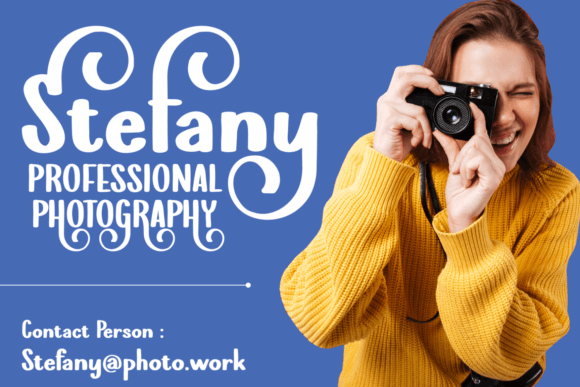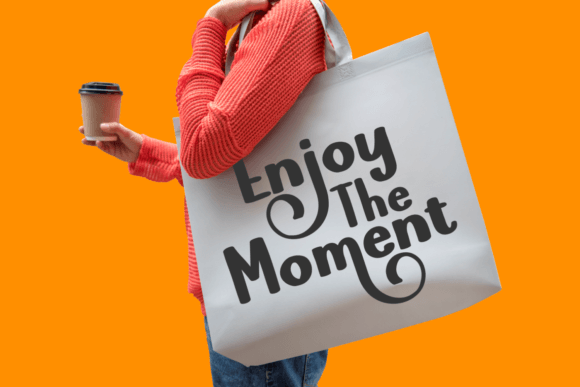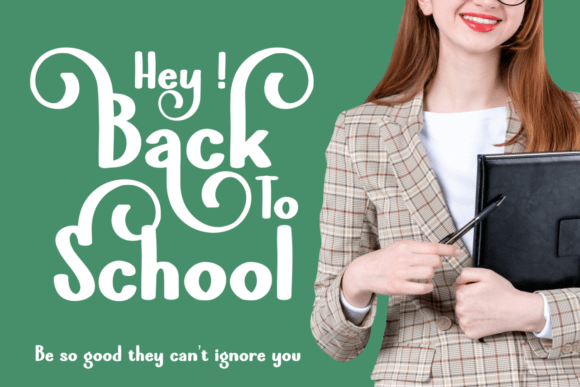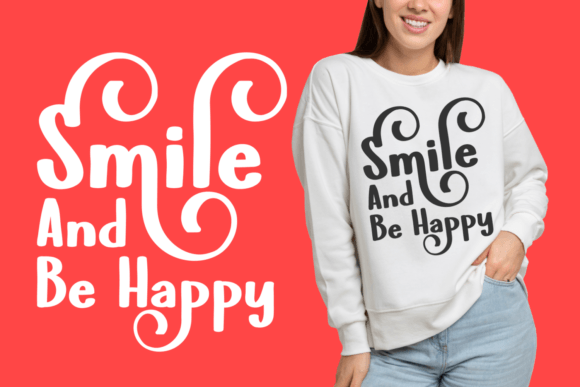
Ghisfa Font: Unleash Your Creativity with Curly and Cheerful Swashes!
Are you a designer, crafter, or DIY enthusiast looking for a font that can add a touch of playfulness and whimsy to your projects? Look no further than the Ghisfa Font! This adorable display font is perfect for creating eye-catching typography designs that will make your logos, cards, fabric prints, web graphics, and more stand out from the crowd.
What Makes Ghisfa Font So Special?
Ghisfa Font is a cute and playful display font that features curly and cheerful swashes, perfect for adding a touch of personality to your designs. The font is designed to be highly versatile, making it suitable for a wide range of projects, from branding and advertising to crafting and DIY. With Ghisfa Font, you can create unique and eye-catching typography designs that will capture the attention of your audience.
Key Features of Ghisfa Font
- Curly and Cheerful Swashes: The font features a range of curly and cheerful swashes that can be used to add a touch of playfulness to your designs. From simple and elegant swashes to more complex and intricate designs, Ghisfa Font has everything you need to create stunning typography.
- Highly Versatile: Ghisfa Font is suitable for a wide range of projects, including logos, cards, fabric prints, web graphics, and more. Whether you’re a designer, crafter, or DIY enthusiast, this font is perfect for adding a touch of personality to your projects.
How to Use Ghisfa Font in Your Designs
Using Ghisfa Font in your designs is easy! Here are a few tips to get you started:
- Logos: Use Ghisfa Font to create unique and eye-catching logos that will make your brand stand out from the crowd. The font’s curly and cheerful swashes are perfect for adding a touch of personality to your logo.
- Cards: Add a touch of whimsy to your greeting cards, invitations, and other paper crafts with Ghisfa Font. The font’s playful swashes are perfect for creating eye-catching typography designs.
- Web Graphics: Use Ghisfa Font to create stunning web graphics, including social media graphics, blog headers, and more. The font’s curly and cheerful swashes are perfect for adding a touch of personality to your website.
Tips and Tricks for Getting the Most Out of Ghisfa Font
Here are a few tips and tricks for getting the most out of Ghisfa Font:
- Experiment with Different Swashes: Ghisfa Font features a range of curly and cheerful swashes, so don’t be afraid to experiment and try out different combinations.
- Mix and Match with Other Fonts: Ghisfa Font pairs perfectly with a range of other fonts, so don’t be afraid to mix and match to create unique and eye-catching typography designs.
- Use the Font in Different Colors: Ghisfa Font looks great in a range of different colors, so don’t be afraid to experiment and try out different color combinations.
In conclusion, Ghisfa Font is a cute and playful display font that is perfect for designers, crafters, and DIY enthusiasts. With its curly and cheerful swashes, PUA encoding, and high versatility, this font is perfect for creating eye-catching typography designs for logos, cards, fabric prints, web graphics, and more. So why wait? Download Ghisfa Font today and unleash your creativity!